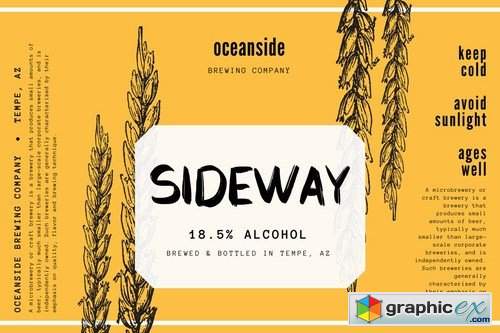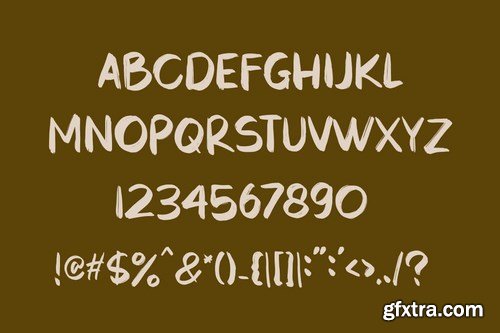
Lincons - Rough Retro Font
Introducing a modern display font Lincons Rough. It's a textured grunge typeface that has a lot of ligatures and stylistic alternates. That OpenType features can help you to create an awesome and unique lettering compositions with unexpected characters combinations.